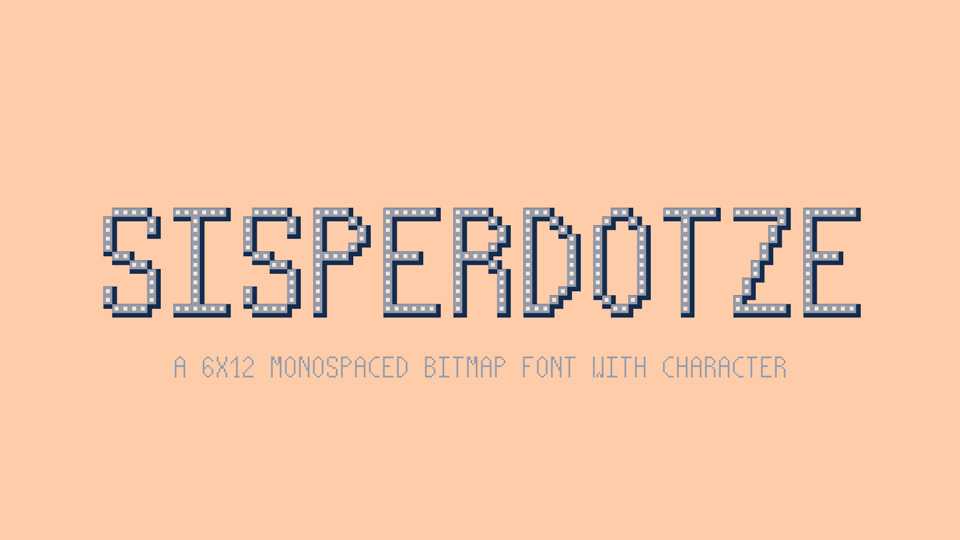
Download MFI Sisperdotze typeface, a 6×12 monospaced bitmap font family in 6 styles with character. MFI Sisperdotze perfectly fits for display use.
Designer: Manufactura Independente